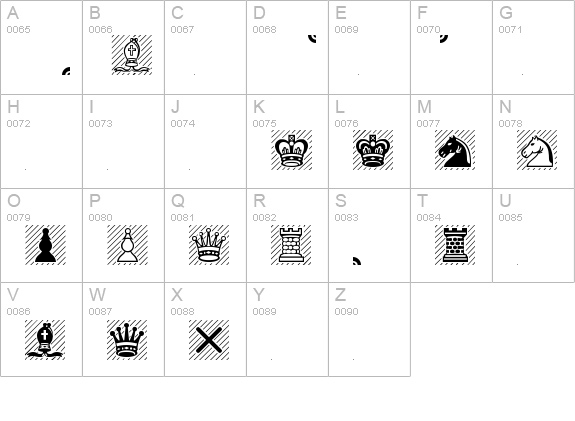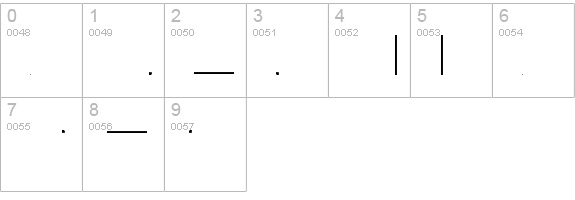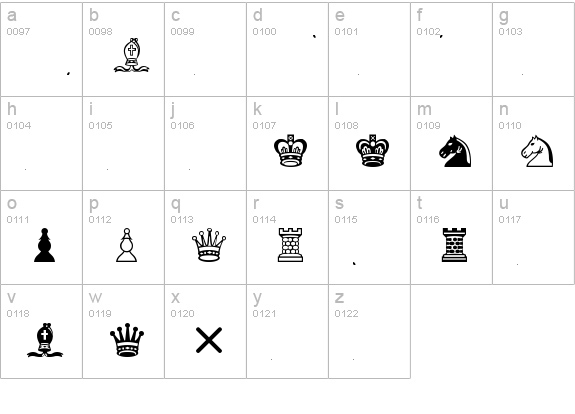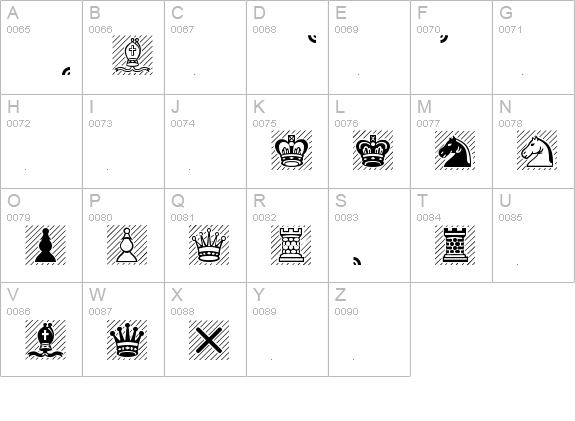
Chess Leipzig Font Details
Chess Leipzig is a stylish and elegant font that captures the essence of classical design with a modern twist. This font features clean lines and sharp edges, making it perfect for a wide range of design projects. Whether you're creating a logo, branding materials, or a website, Chess Leipzig will add a touch of sophistication and class to your work. What sets Chess Leipzig apart is not only its timeless aesthetic, but also the fact that it is completely free to download. Yes, you read that right – this stunning font is freely available to download at FontsMarket.com. So go ahead and elevate your designs with Chess Leipzig, without breaking the bank.